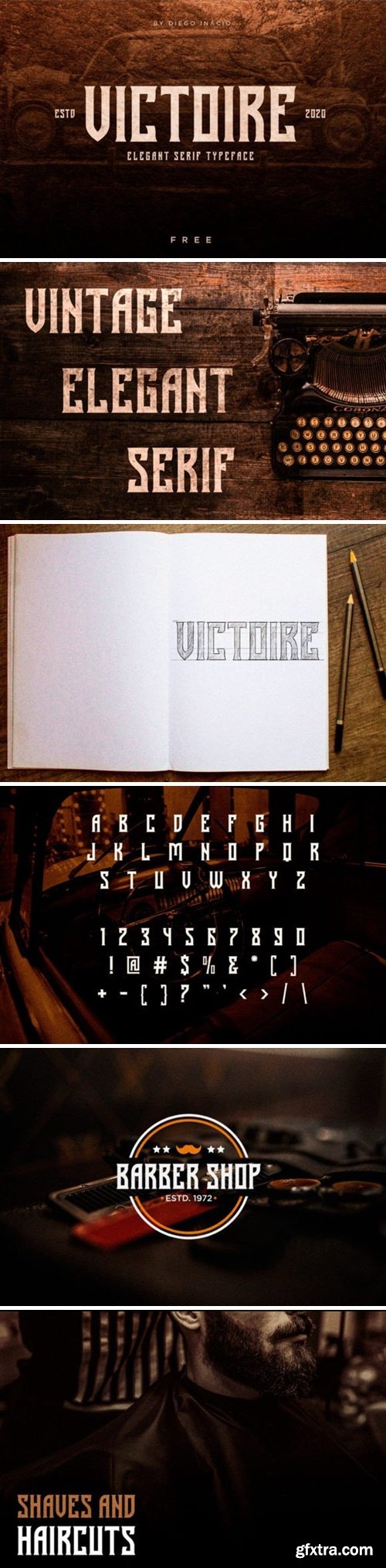
Victoire is an exquisite typeface meticulously crafted to evoke the timeless elegance of vintage aesthetics. Its graceful serifs enhance clarity and readability, making it an ideal choice for crafting enduring classic branding and logos with a touch of nostalgic charm. Elevate your design projects with Victoire’s refined appeal and pay homage to the sophistication of bygone eras.